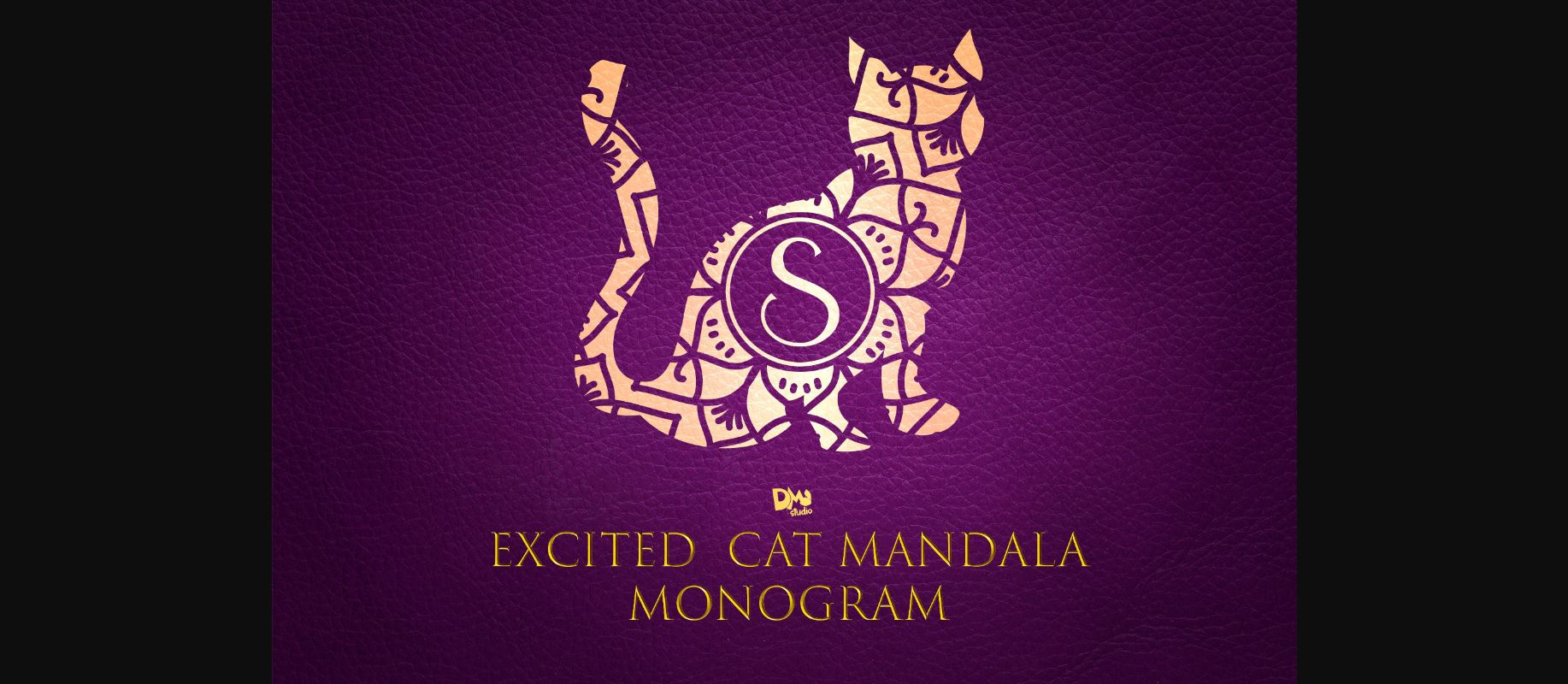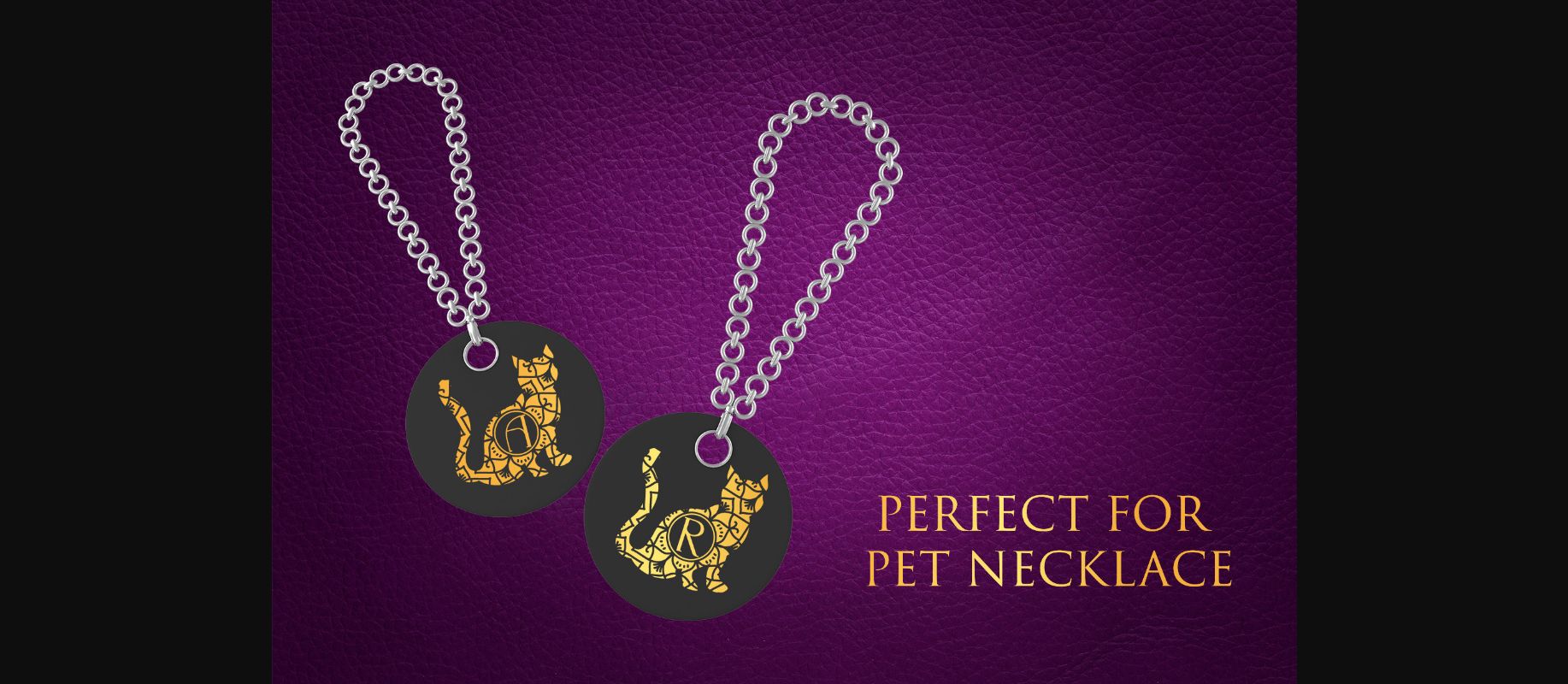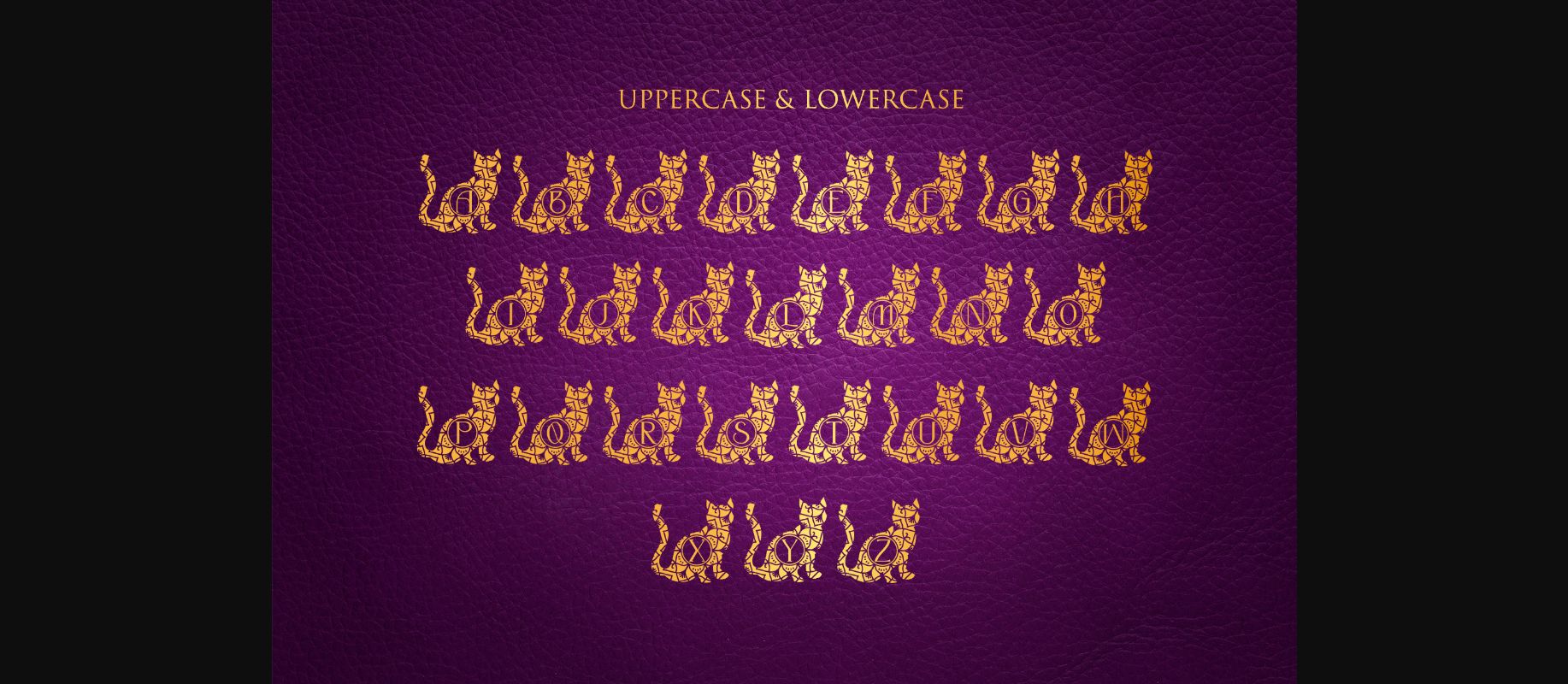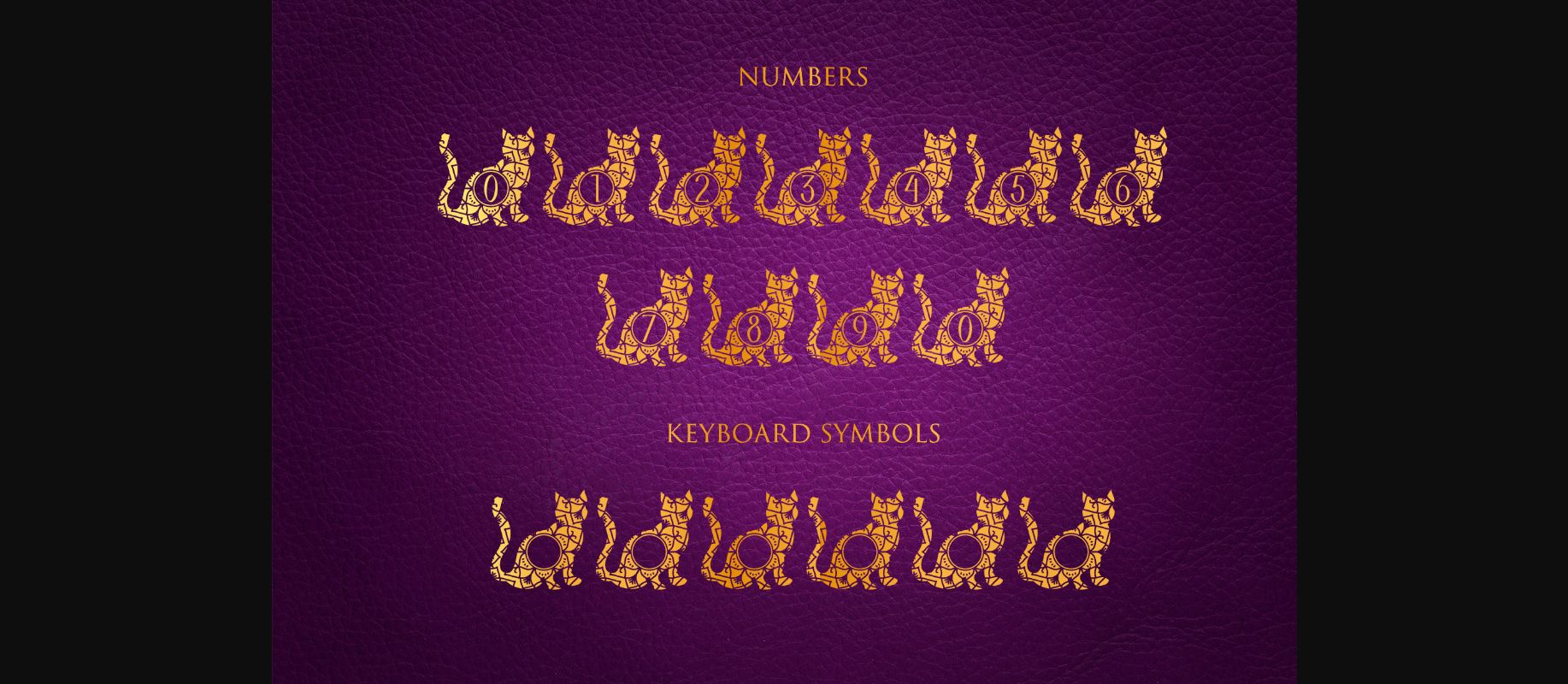
HomeDecorative FontsExcited Cat Mandala Monogram Font Decorative Fonts Excited Cat Mandala Monogram Font FacebookXPinterestWhatsApp 1 of 6 ... Excited Cat Mandala Monogram Font Poster 2... Excited Cat Mandala Monogram Font Poster 3... Excited Cat Mandala Monogram Font Poster 4... Excited Cat Mandala Monogram Font Poster 5... Excited Cat Mandala Monogram Font Poster 6... About Excited Cat Mandala Monogram Font Excited Cat Mandala Monogram is the ultimate cat-lovers font. This purrfect decorative typeface will enhance any creative project dedicated to kittens. DOWNLOAD NOW People also explored Christmas Stephanie Font Linuxson Font Paper Lanterns Nietta Font The Brocky Font Smith Family Font Butter Font Mitabela Font The Soulmate Font 286 0 TagsExcited Cat Mandala Monogram Font Previous articleScared Cat Mandala Monogram FontNext articleFriendly Cat Mandala Monogram Font LEAVE A REPLY Cancel reply Comment: Please enter your comment! Name:* Please enter your name here Email:* You have entered an incorrect email address! Please enter your email address here Website: Save my name, email, and website in this browser for the next time I comment. Personal Use Free The Quick Personal Use Free Read more about this font Legacy Personal Use Free Read more about this font Mallvirra Personal Use Free Read more about this font Cinderella Personal Use Free Read more about this font BLOG Free vs Paid Fonts: Why Investing in Premium Fonts Is Worth It Free vs Paid Fonts: Why Premium Fonts Are Worth It in 2025 The debate of free vs paid fonts continues in the design world. While... Modern Sans-Serif Fonts That Brands Love in 2025 Where to Buy American Fonts Online in 2024 Top 7 Google Fonts Alternatives for Faster and Privacy-Friendly Web Design (2025)